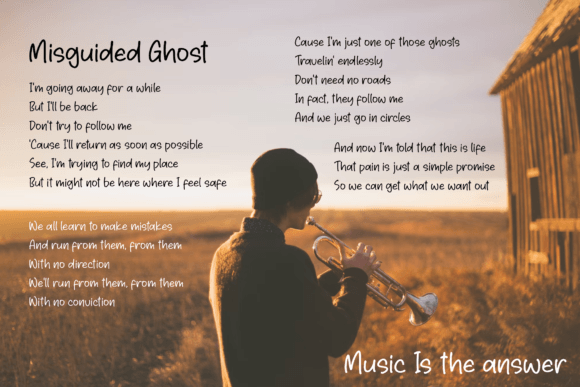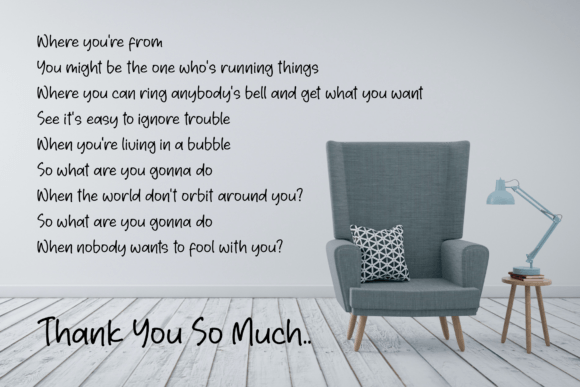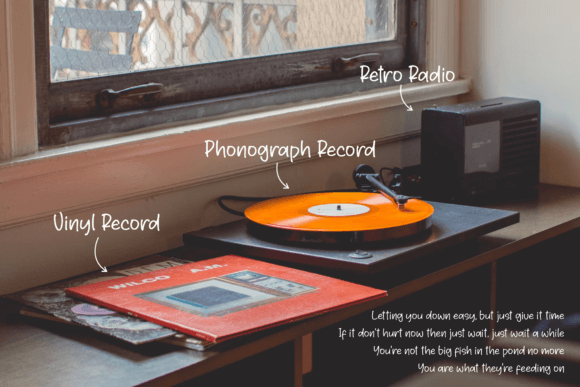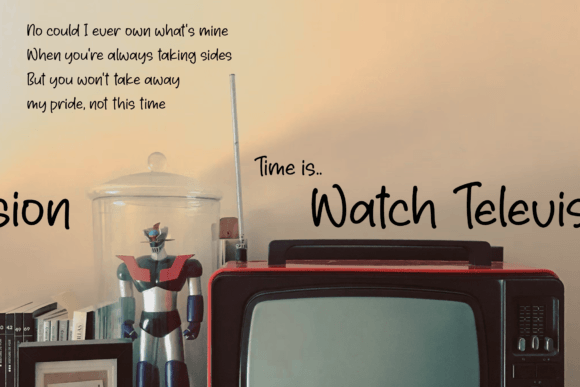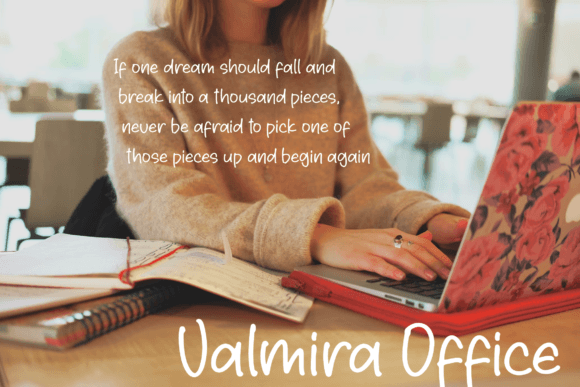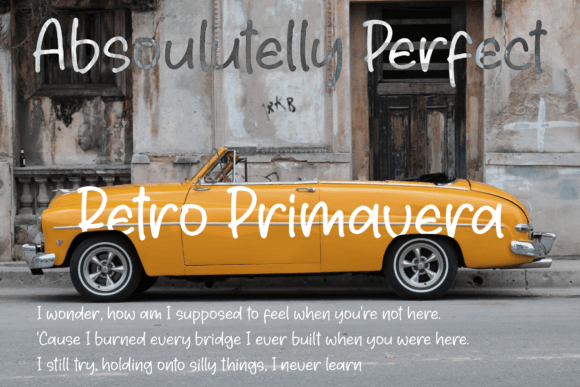
Introduction to Patymora Notes Font
Have you ever stared at a blank canvas, waiting for the perfect spark to ignite your next creative project? For designers, this moment is all too familiar. It’s a moment of anticipation, where the right font can make all the difference between a mediocre design and a masterpiece. This is where the Patymora Notes Font comes in – a beautiful script font that adds a touch of elegance to any project.
Developed by Letterfabric Studio, the Patymora Notes Font is a versatile design resource that’s perfect for logos, branding projects, and even homeware designs. Its high-quality script style is sure to elevate your designs, making it a valuable addition to any designer’s toolkit. And the best part? It’s available for free download, making it an accessible resource for creatives of all levels.
- Unique Handwritten Style: The Patymora Notes Font features a beautiful, handwritten style perfect for creative projects that require a personal touch.
- High-Quality Design: This font is designed with high-quality in mind, making it ideal for use in various design projects where clarity and readability are essential.
Honest Review: Patymora Notes Font
I recently stumbled upon the Patymora Notes Font, and I must say it’s been a game-changer for my creative project. The high quality of this font is evident, making it a valuable design resource.
- ✨ Beautiful, hand-drawn feel that adds a personal touch to any design
- ✨ Wide range of uses, from headers to body text
- ⚠️ Limited character set, which may not be ideal for longer texts
Overall, I’m impressed with the Patymora Notes Font. It’s a great addition to any designer’s toolkit, and I’d highly recommend it for personal projects or design experimentation.
Tips for Getting the Most Out of Patymora Notes Font
When using the Patymora Notes Font, be sure to pair it with a transparent background to really make it stand out. This font is perfect for creating eye-catching designs and is a great addition to any design project.
The Patymora Notes Font is ideal for use in a variety of creative projects, including infographics, posters, and business cards. Its high-quality design makes it a popular choice among designers.